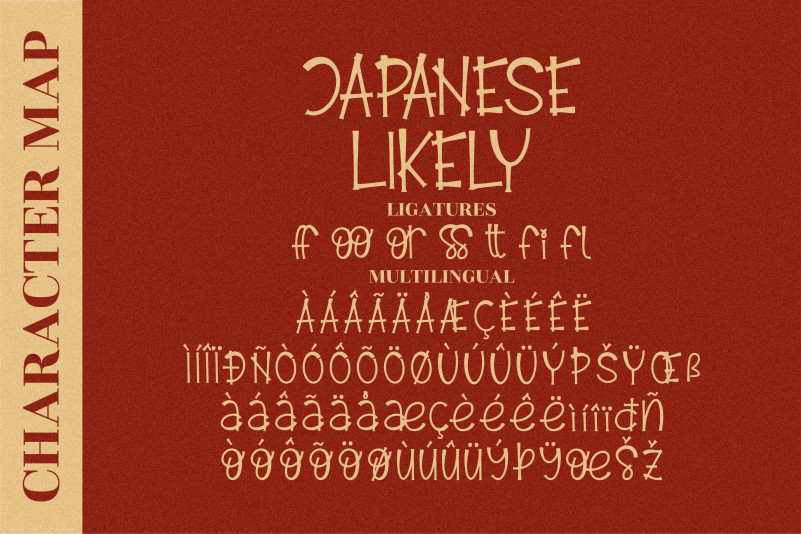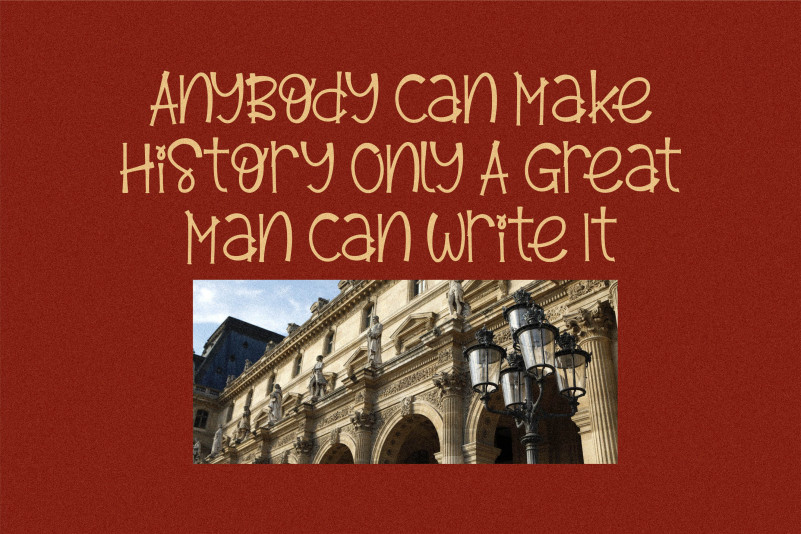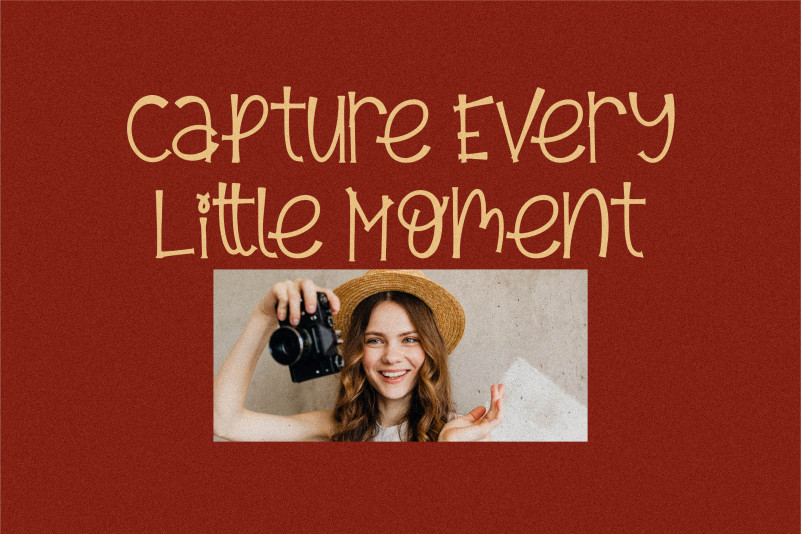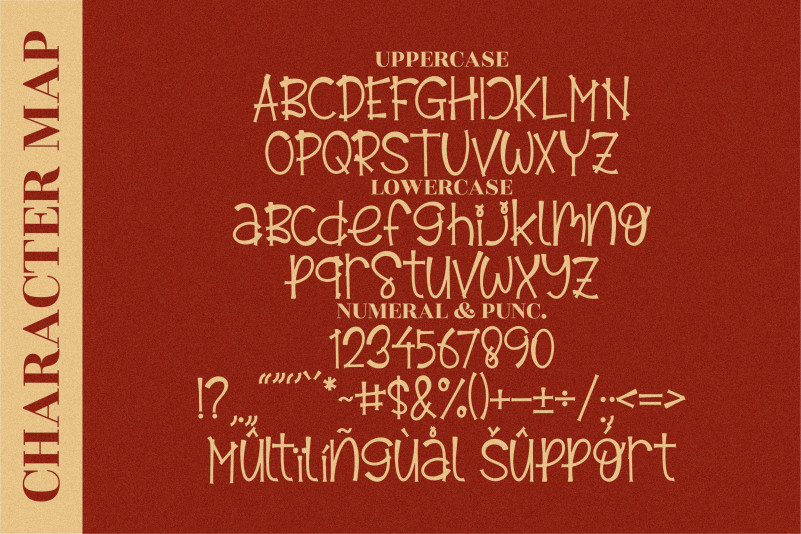
Emely Days Font
Emely Days Display Font
This is a neat, quirky and fun handwritten font. Whether you use it for cartoon related designs, children games or just any creation that requires a lovely touch, this font will be an amazing choice.